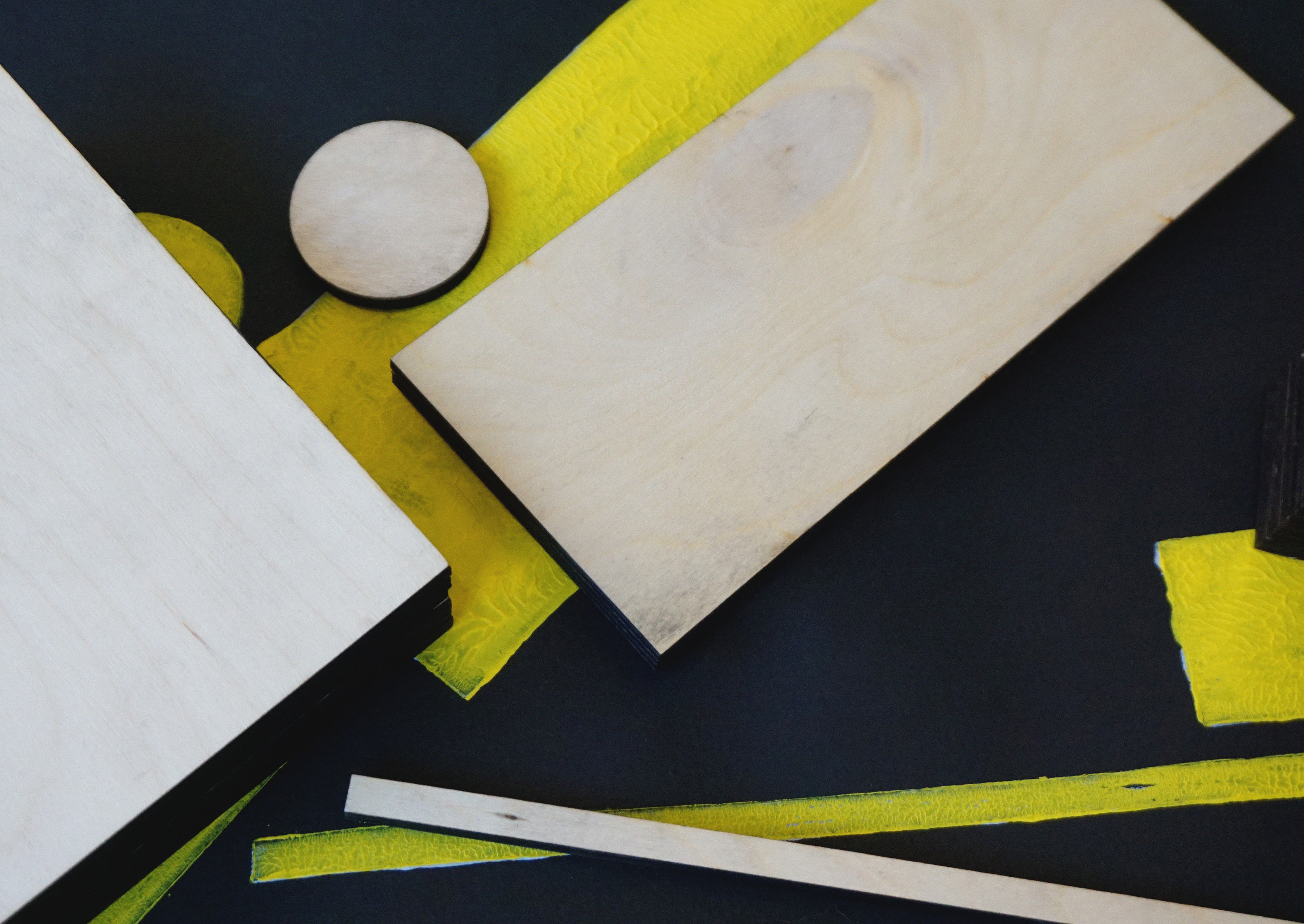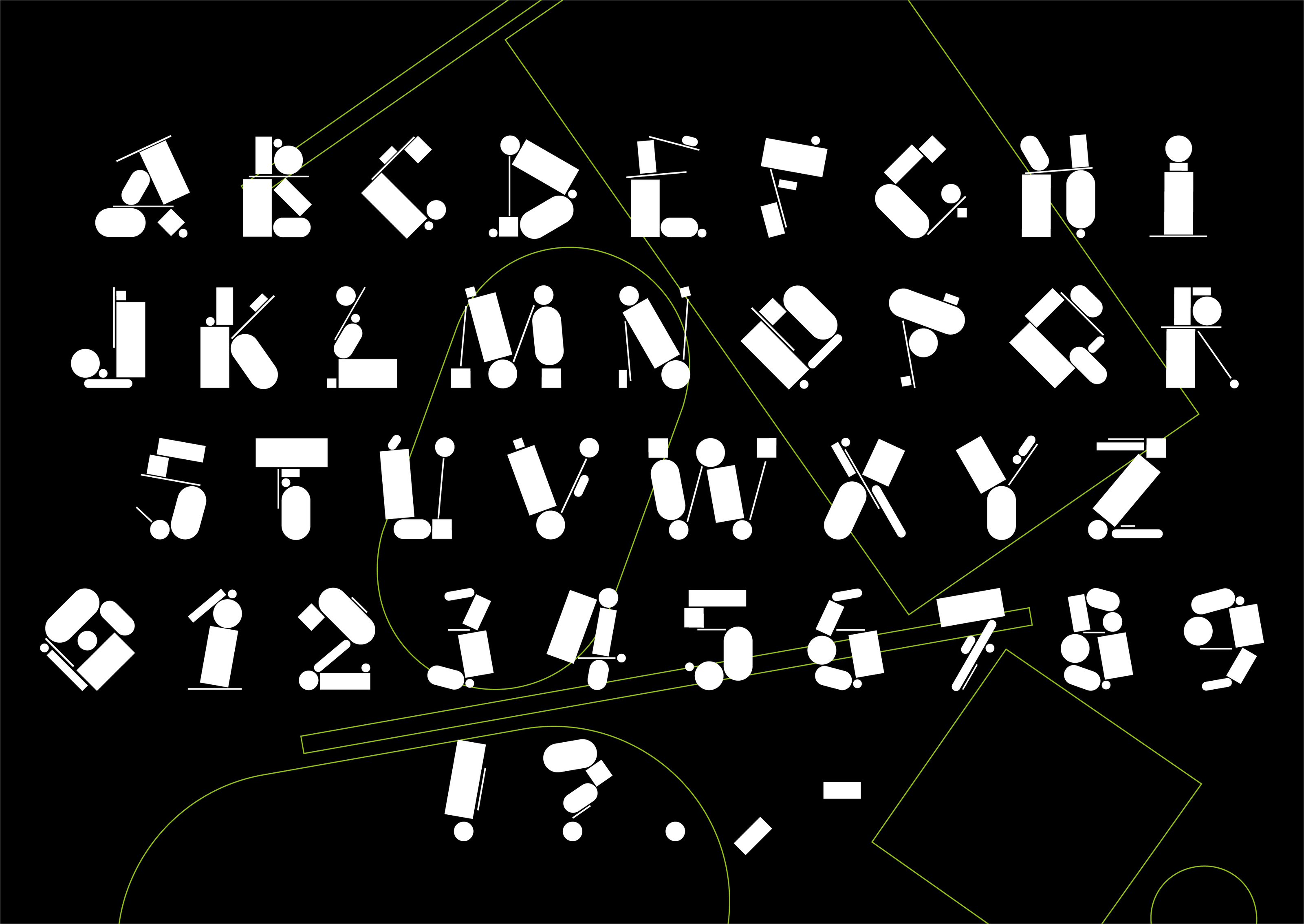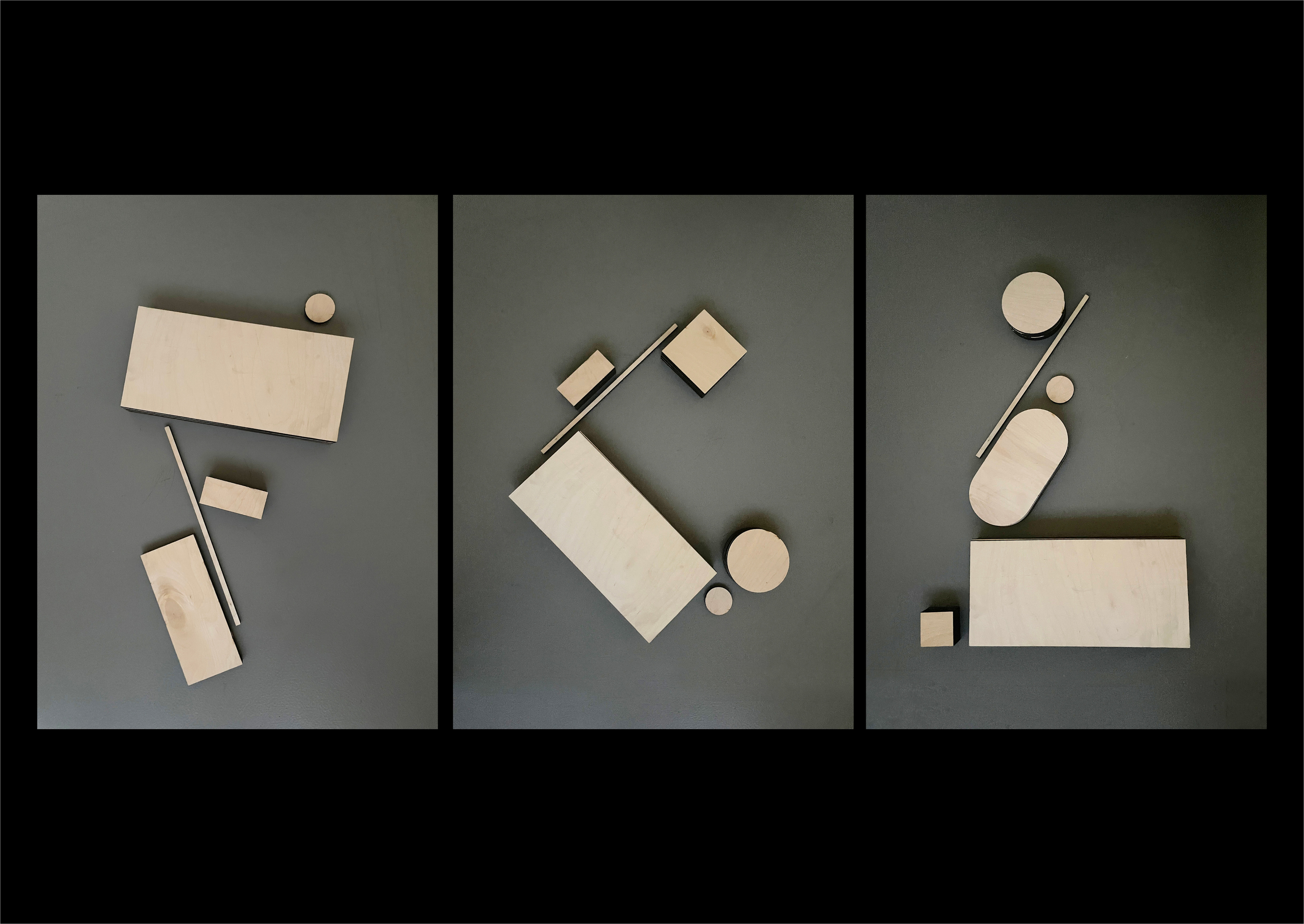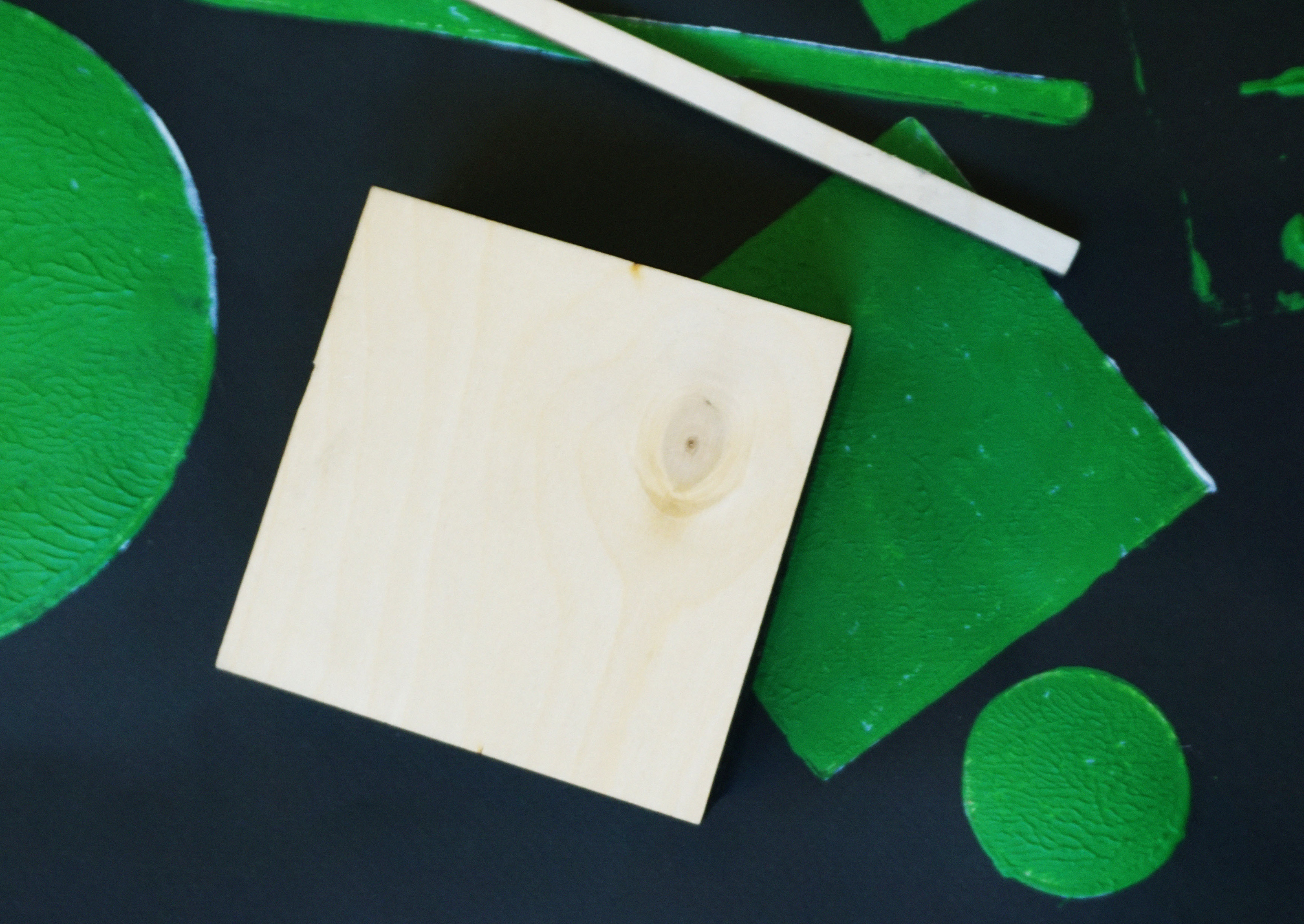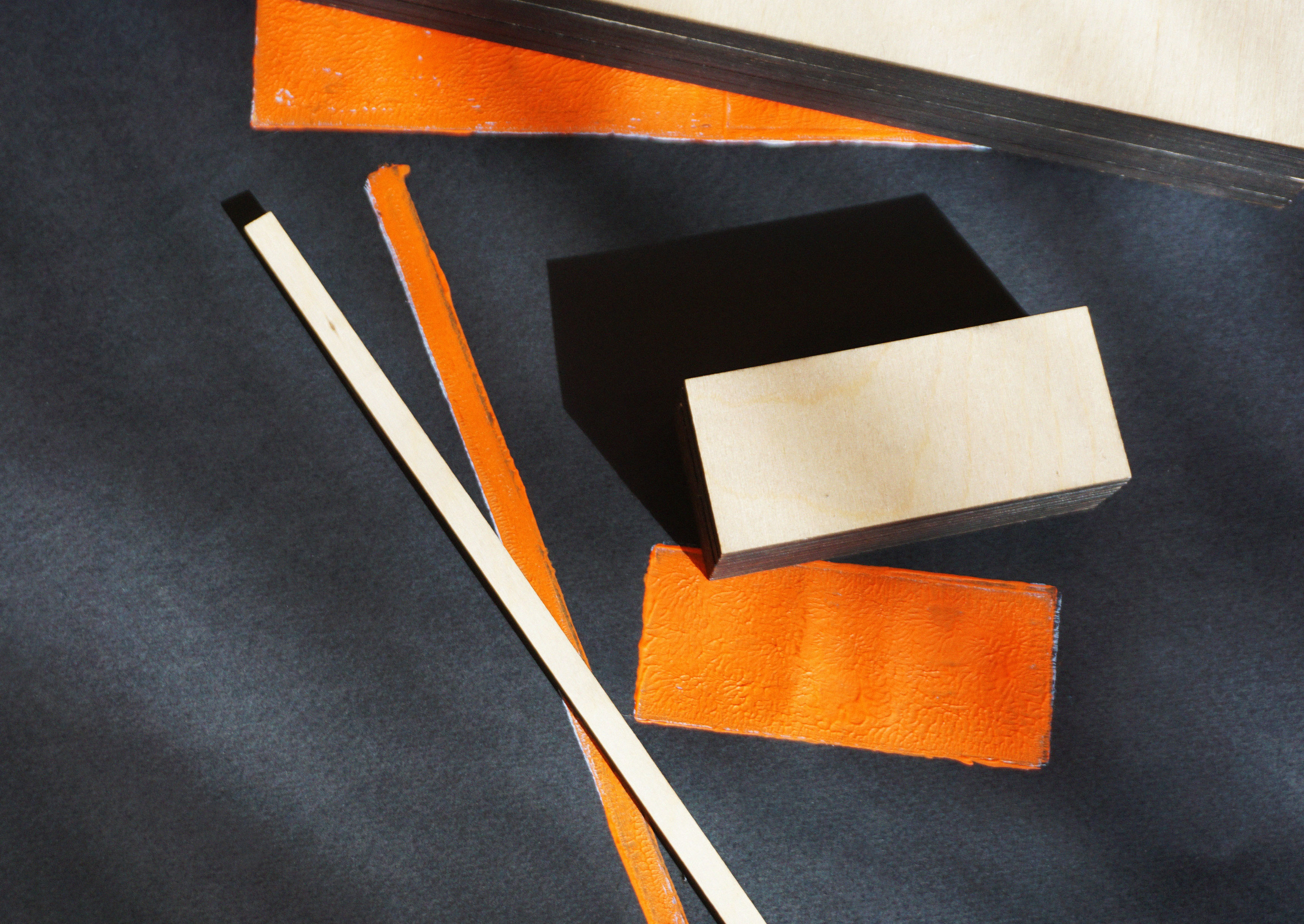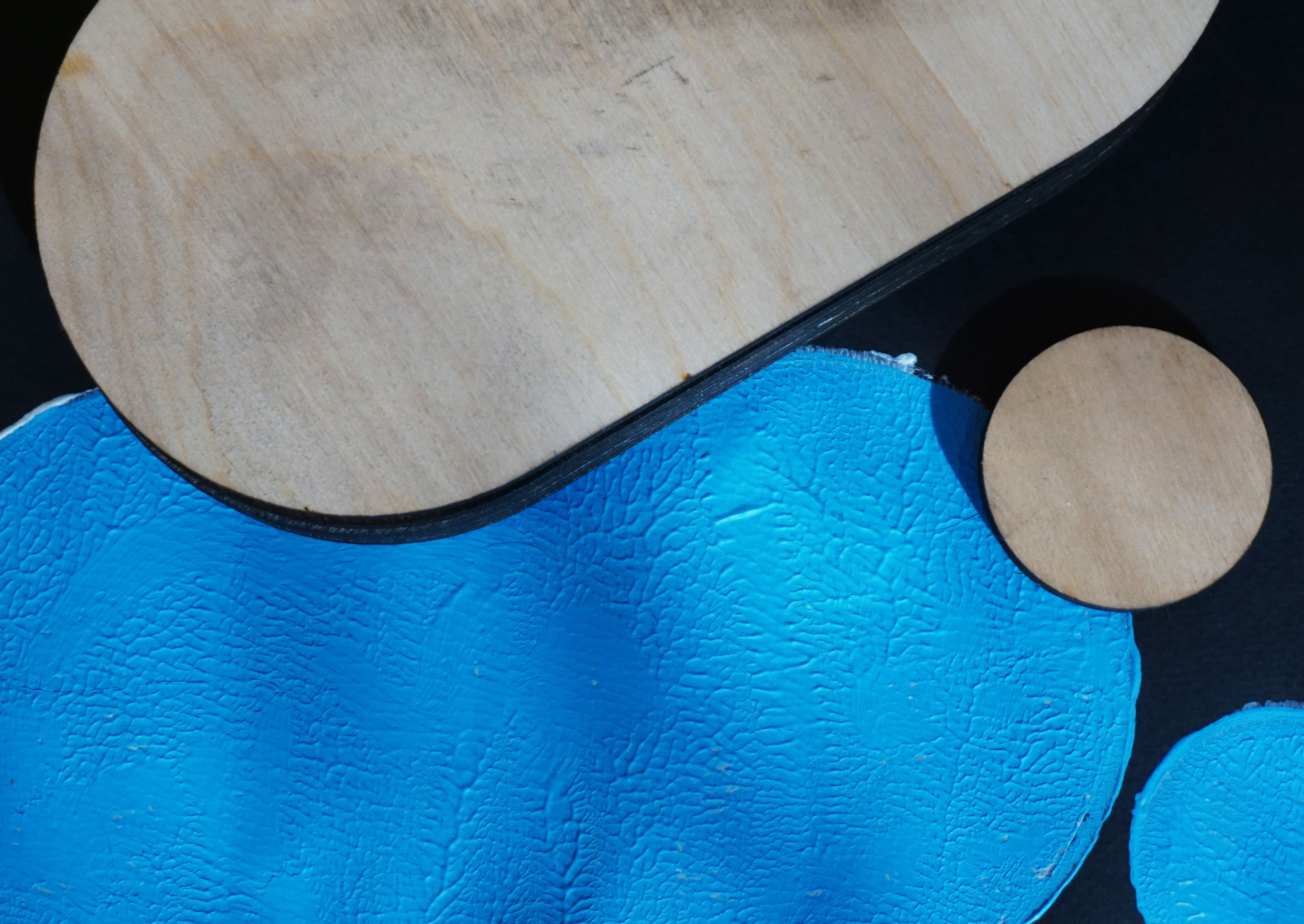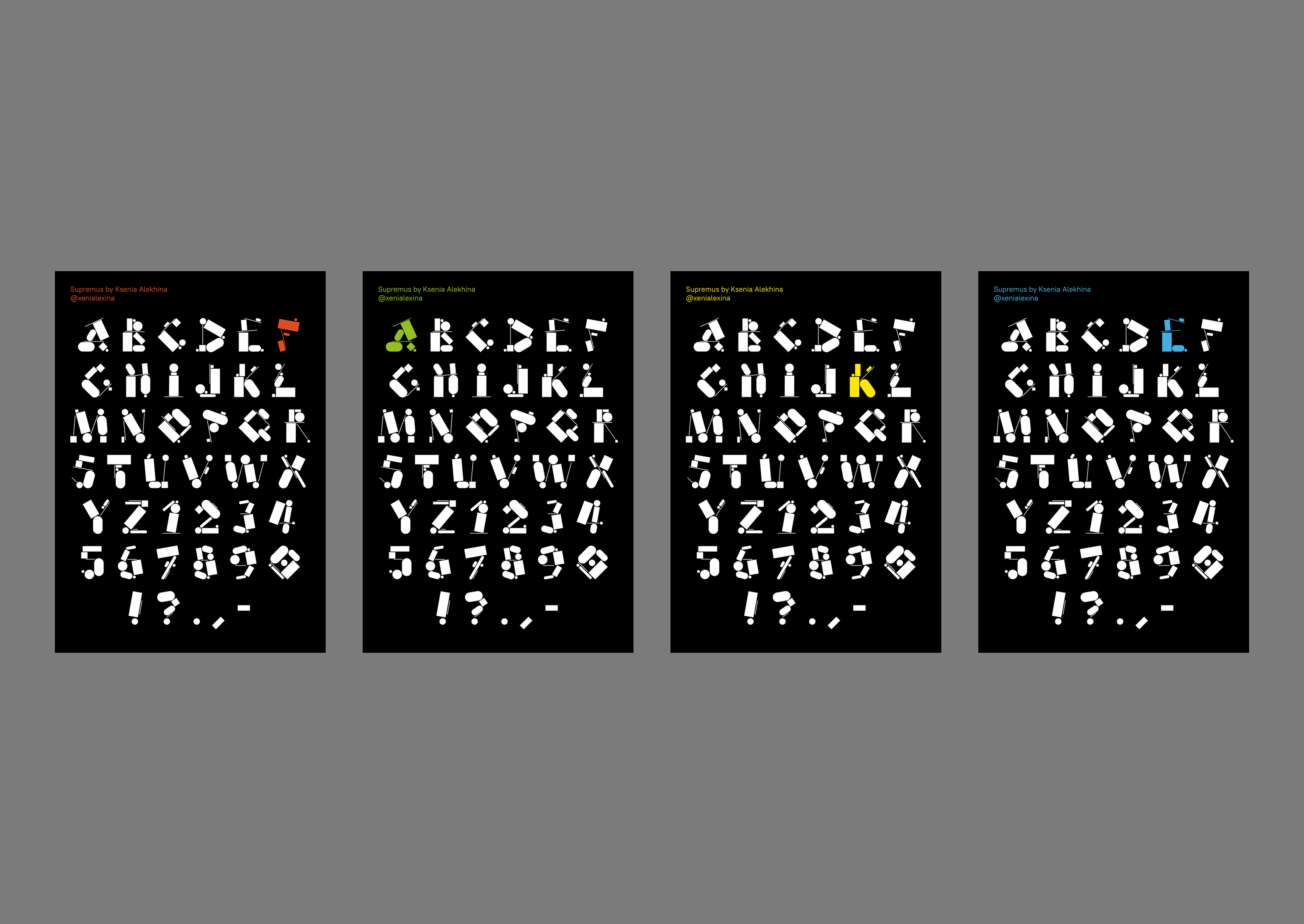
Supremus typeface
Supremus is a modular typeface. All the symbols designed from a set of geometric shapes. The appearance of each letter resembles a composition in the style of Suprematism — hence the choice of name.
Supremus is suitable for creating posters and decorating spaces, walls and floors, because it looks best in a large set: from 1000 size and above.
Also, I created a specimen. A5 cards showing the typeface, A2 hand-made posters and wooden modules. Using these, you can make any symbol from Supremus typeface.